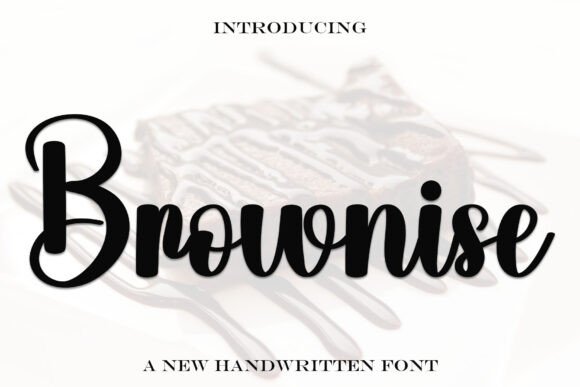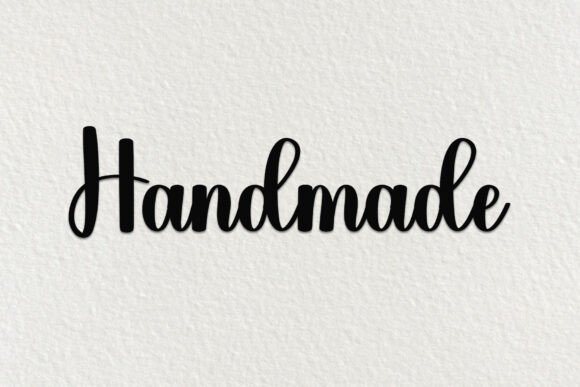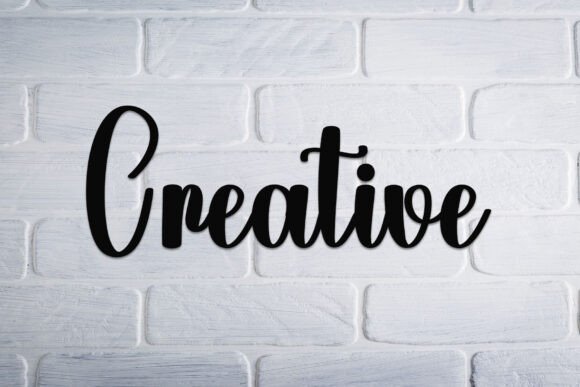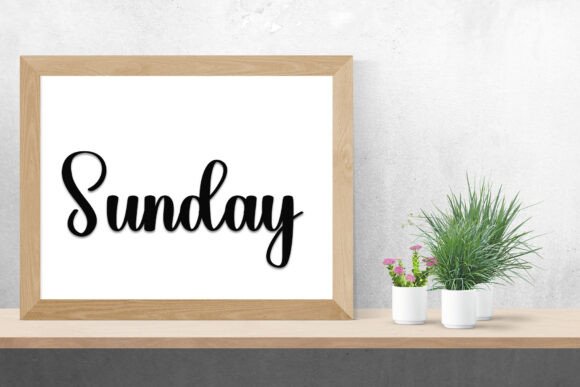
Brownise Font: Sweet Cursive Handwritten Font for Branding & Wedding Design
About the Brownise Font
Step up your design game with Brownise Font, a font that exudes confidence and style. Brownise is a sweet and cursive handwritten font. This gentle font will look gorgeous on a variety of design ideas. It will add a joyful and romantic touch to each of your projects! Perfectly fit for branding, logo, wedding things, greeting cards, fashion, lookbook, marketing promotion, and any time you want your design to look fancy and elegant but still casual.
Brownise’s casual elegance makes it ideal for branding projects needing a touch of whimsy, particularly logos, short taglines, and packaging for products targeting a young, sophisticated audience. It excels in greeting cards, invitations, and short social media posts. However, its cursive nature and relatively low x-height make it unsuitable for body text or lengthy paragraphs, and its delicate strokes might prove illegible at small sizes for UI applications.
Pairing Brownise effectively requires considering its handwritten softness. A clean sans-serif like Lato or Open Sans provides a strong counterpoint, enhancing readability in supporting text. For a more playful aesthetic, a geometric sans-serif such as Montserrat can create a striking contrast. Alternatively, a classic serif like Garamond adds a touch of sophistication, elevating the overall design feel.
Brownise projects a friendly, romantic personality, best suited to brands focused on lifestyle, fashion, beauty, or events emphasizing a sense of lighthearted charm. Avoid using it for projects requiring high readability or a strong sense of authority.
Brownise Font Usage Examples
Brownise Font Example